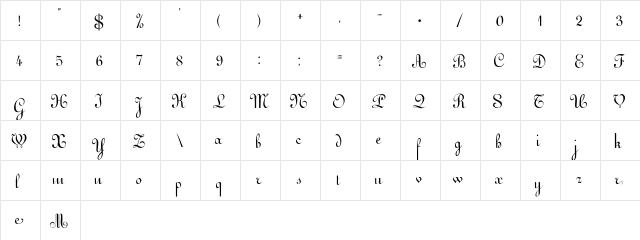
Gessele Script
| Style | Script |
Design Context for Gessele Typeface
Gessele flows with the natural rhythm of handwritten lettering, making it ideal for designs that call for warmth and personal expression.